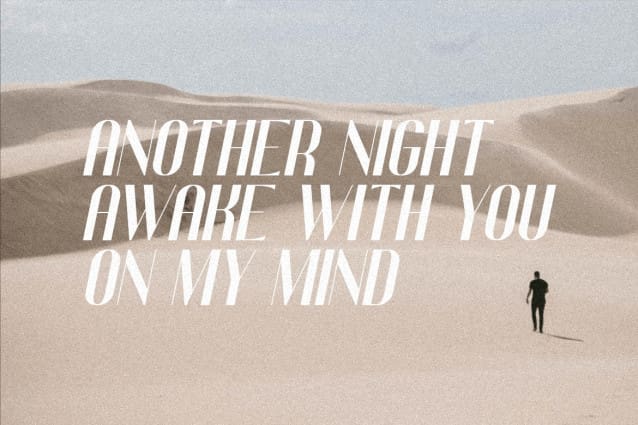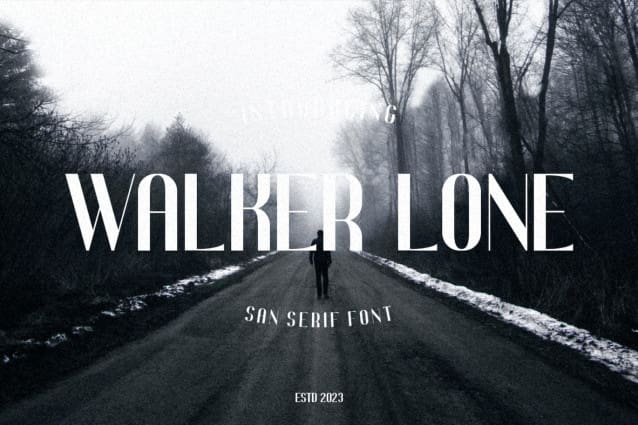
Walker Lone Font
Walker Lone Font – Display Sans Serif . This SSerif collection is perfect for personal branding. It was designed with the intention of being used for your personal brand. But it works well for many applications. Everything from personal branding, logos, name tags, handwritten quotes, product packaging, merchandise, social media and greeting cards, signature photography or advertising, could benefit from this collection of these bold typefaces.